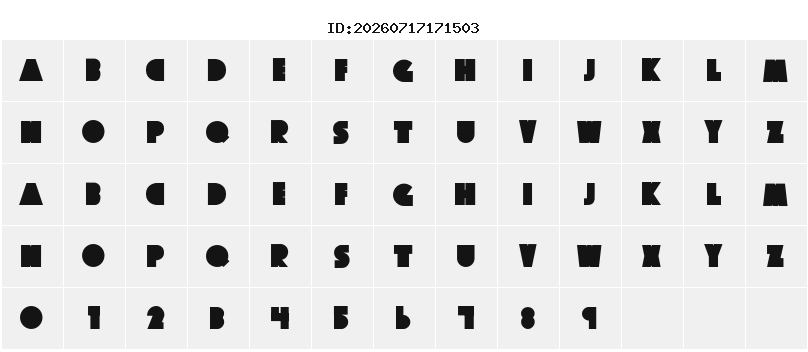
Big Fat Ugly Cow Preview
• Font Name: Big Fat Ugly Cow
• Designer: Steffen Ludvigsen
About Big Fat Ugly Cow.otf
Big Fat Ugly Cow.otf is a modern, elegant sans-serif font designed for ultimate readability and visual harmony. Perfect for branding, headlines, web design, and print materials.